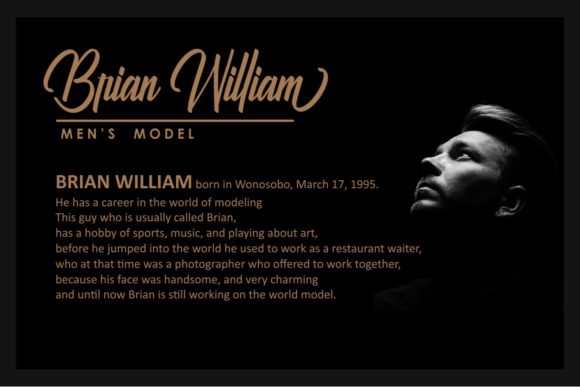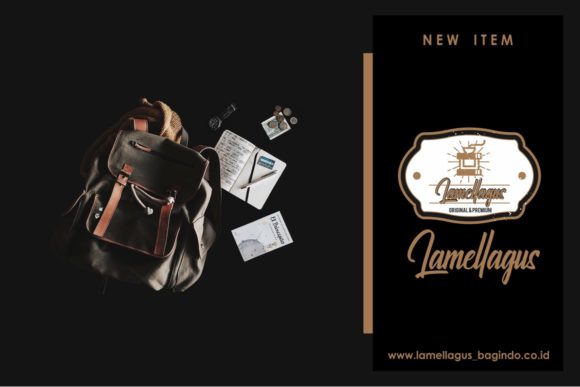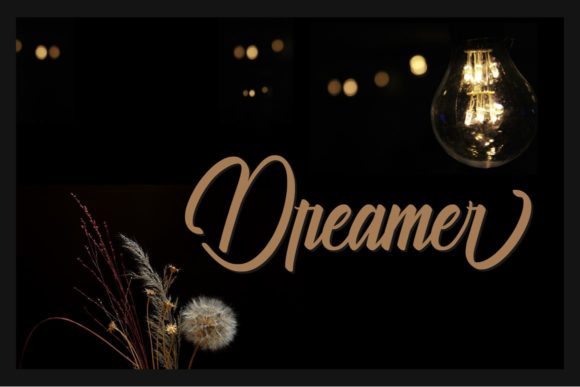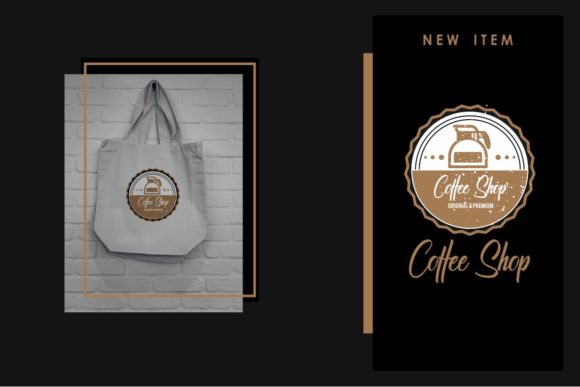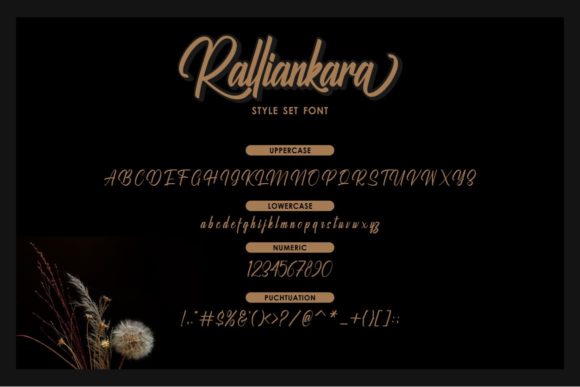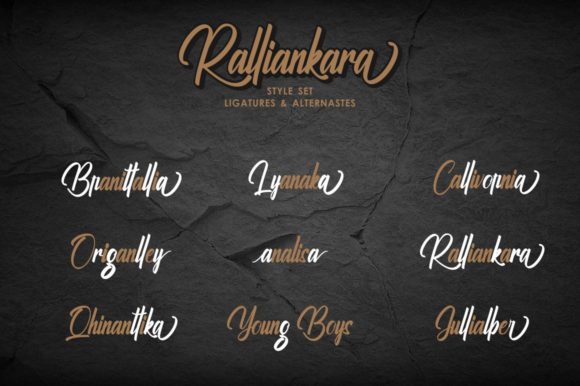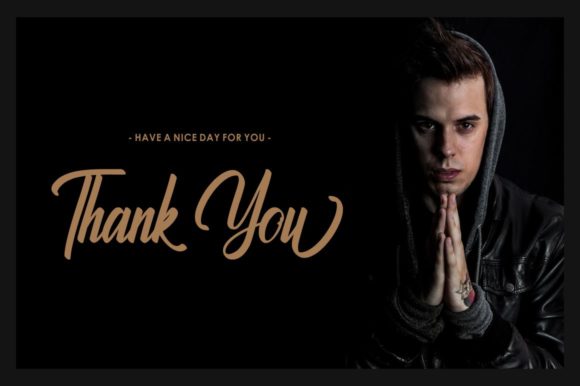
Ralliankara Font
About Ralliankara Font
Ralliankara is a beautiful calligraphy handwritten font with a beautiful feel. It will turn any design project into a stand out!